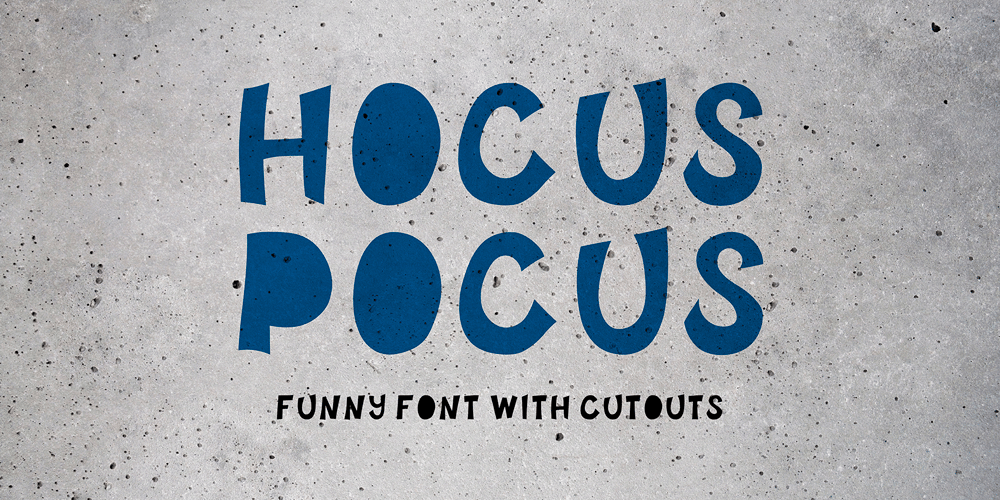
Hocus Pocus
Hocus Pocus font
Hocus Pocus Font Family was designed by Anastasia Kuznetsova and published by Anastasia Kuznetsova. Hocus Pocus contains 1 styles and family package options. I present my funny font with “Hocus Pocus”cutouts This is a playful font in the style of a cut-out “all capital letters”. Lowercase letters are filled with letters (A, O, B, etc.), and uppercase keys have ordinary black letters. :)Great for sweet greeting cards and invitations, for playful branding and quotes, for unusual packaging and much more!This font is unique and simple:)Font Features• character set A-Z, A-Z;• 1 languages (English);• numbersIt is recommended to use it in Adobe Illustrator or Adobe PhotoshopMade with love ♡Thank you for stopping by, and I wish you a creative day!